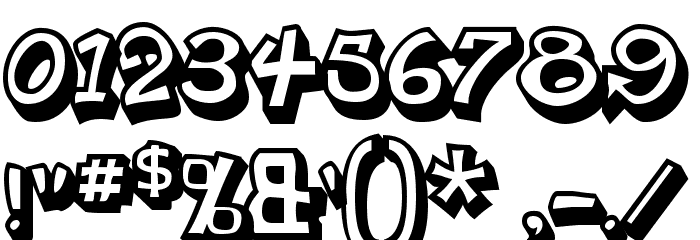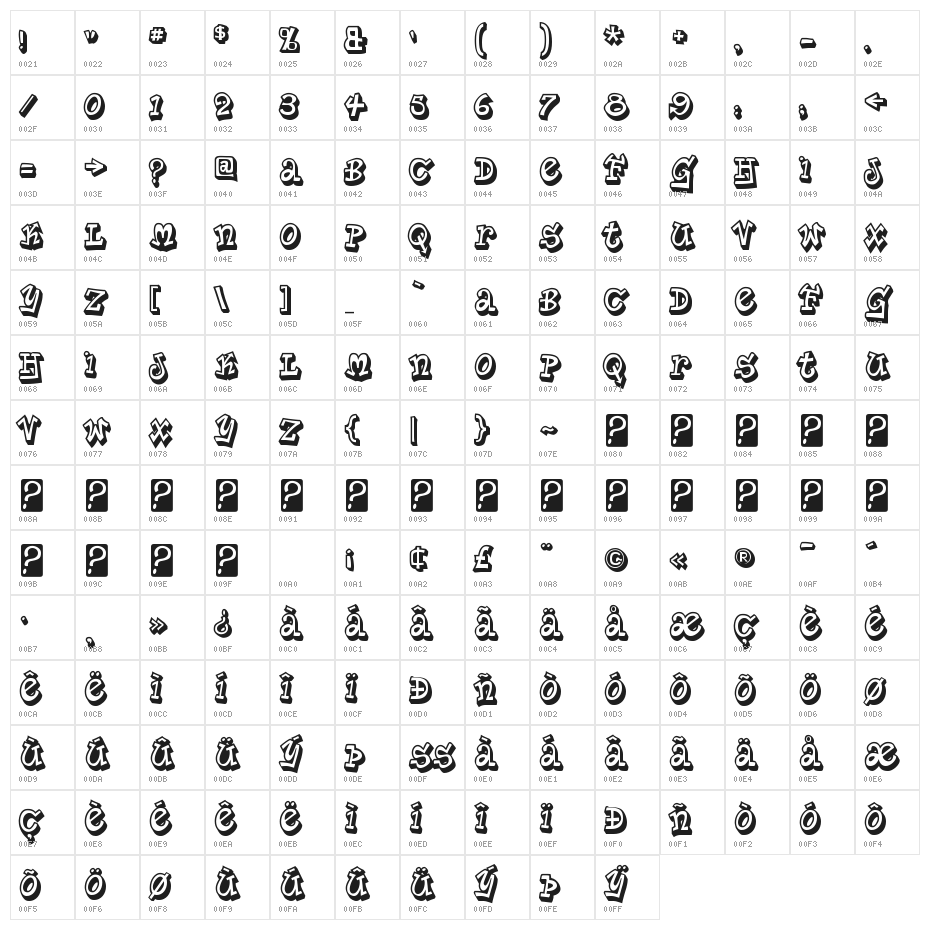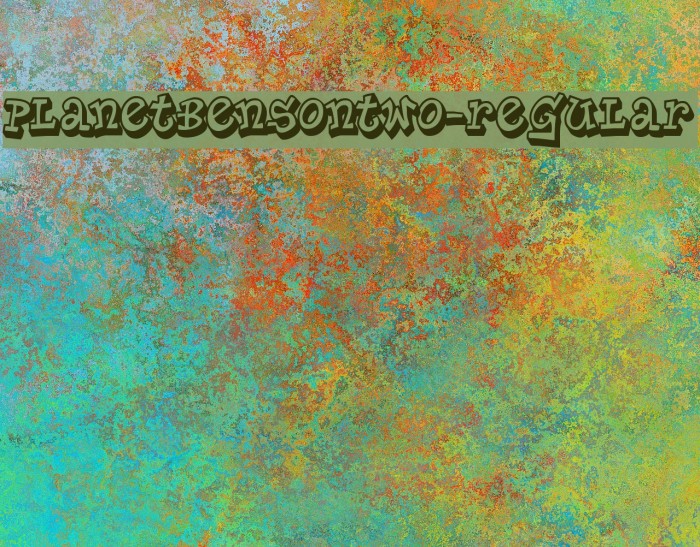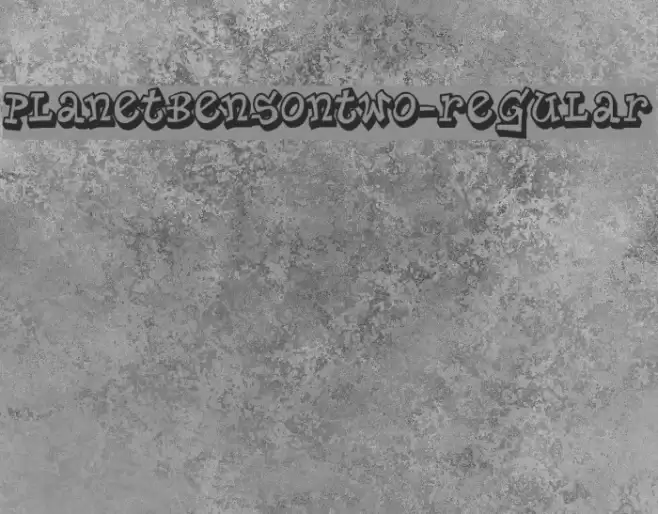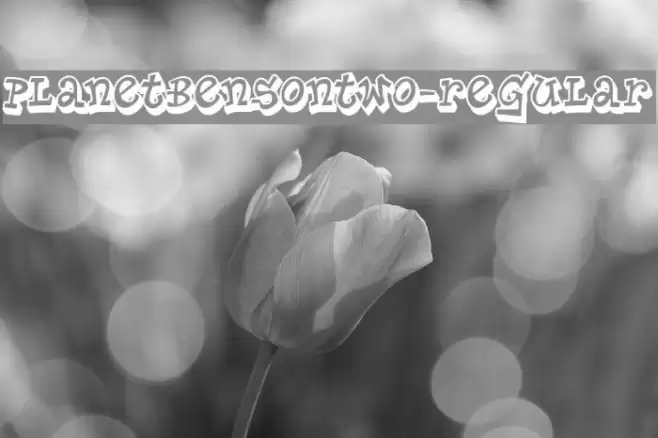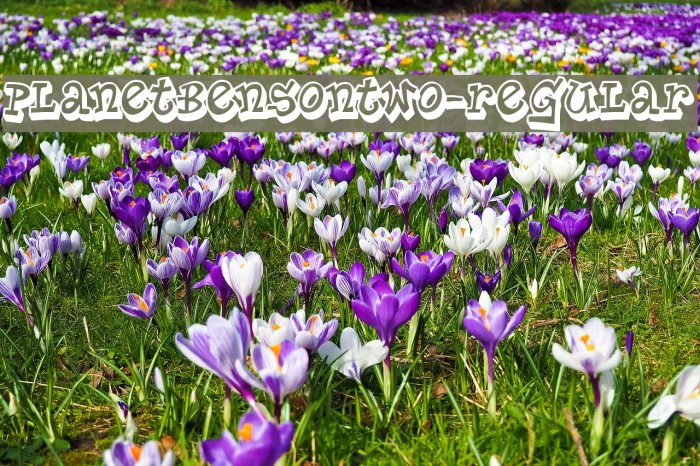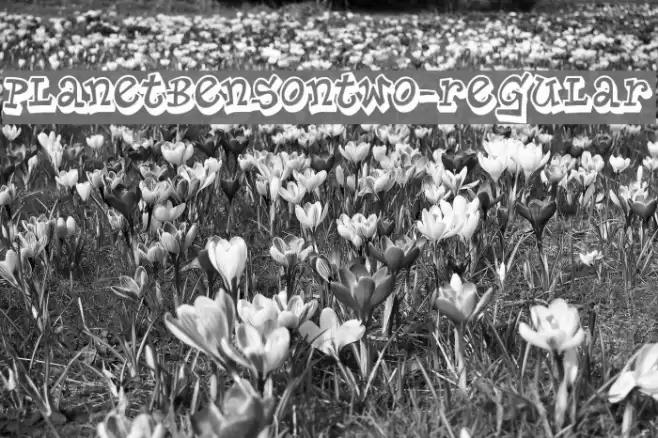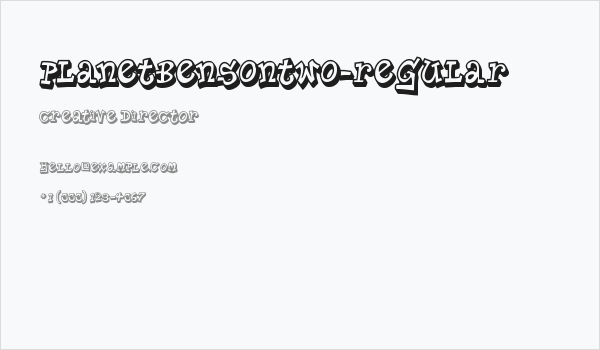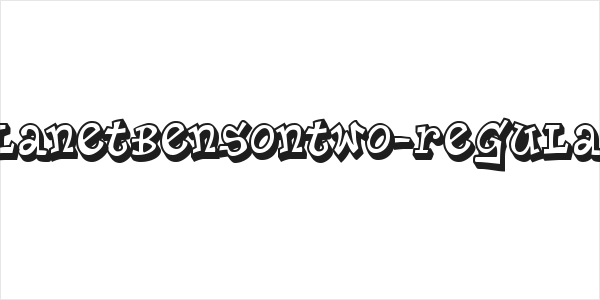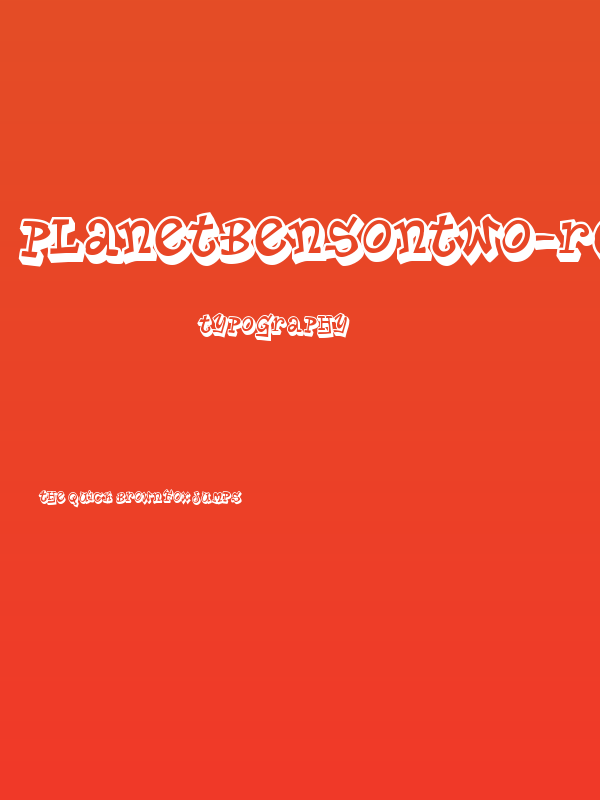
PlanetBensonTwo-Regular Font
PlanetBensonTwo-Regular Description
This font features a bold, playful style with a graffiti-like appearance. The characters are outlined with a thick black shadow, giving them a three-dimensional effect. The letters are rounded and have a whimsical, cartoonish quality, making them stand out with a vibrant and energetic feel. The font is highly decorative, with each character having a unique flair that adds to its dynamic look. The numbers and special characters follow the same bold and lively design, ensuring consistency throughout the typeface.
| Use Case | Logos, Posters, Headlines |
| Proposed Projects | Ideal for street art designs, youth-oriented branding, comic book titles, and playful event posters. |